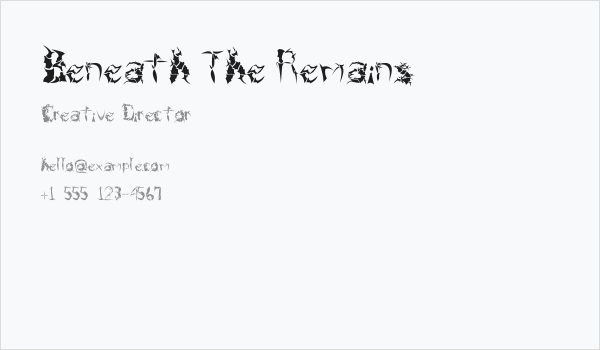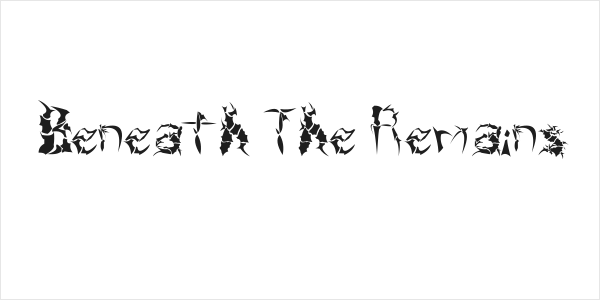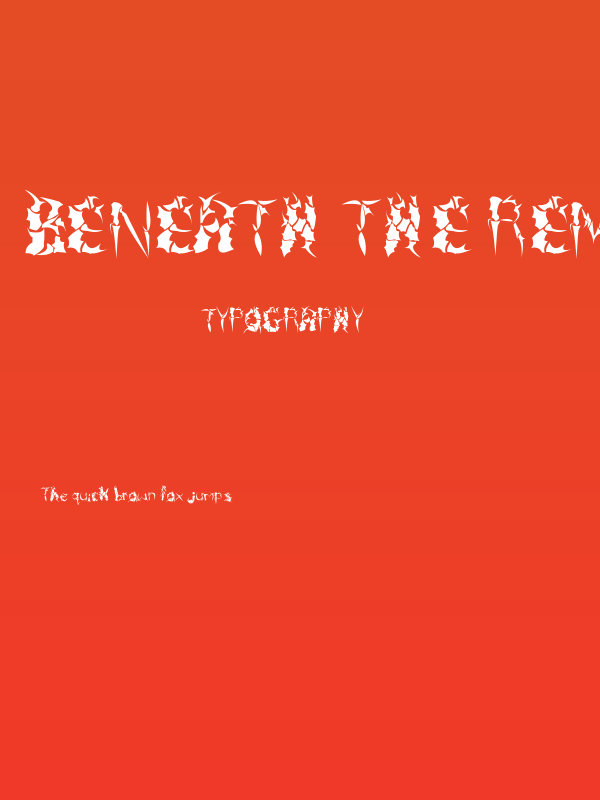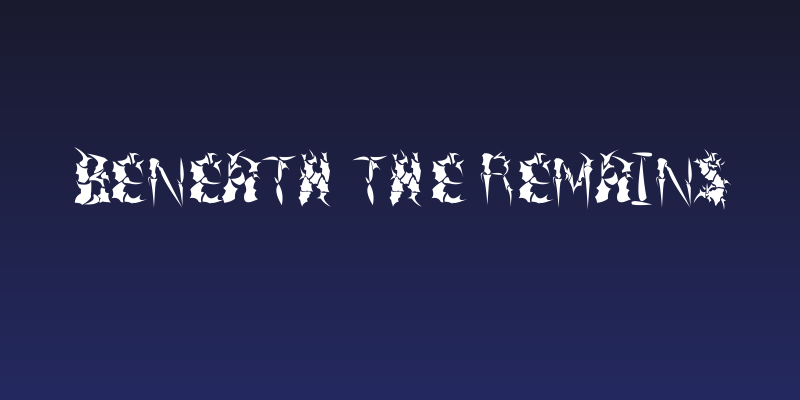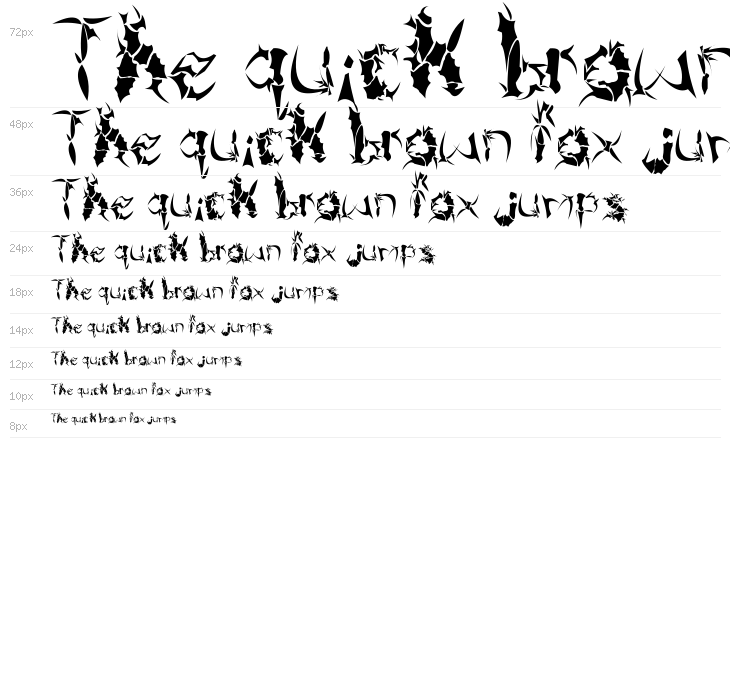
Beneath The Remains Font
Beneath The Remains Description
This font features a highly decorative and fragmented style, reminiscent of shattered glass or jagged edges. Each character is uniquely designed with sharp, angular cuts and irregular shapes, creating a chaotic yet intriguing visual effect. The font's bold and aggressive appearance makes it stand out, with high contrast between the thick and thin strokes. The overall design is dynamic and edgy, suitable for projects that require a strong visual impact. Its unconventional style may challenge readability at smaller sizes, but it excels in creating a dramatic and artistic statement.
| Use Case | Logos, Headlines |
| Proposed Projects | Ideal for album covers, posters, or any project needing a bold, artistic statement. |